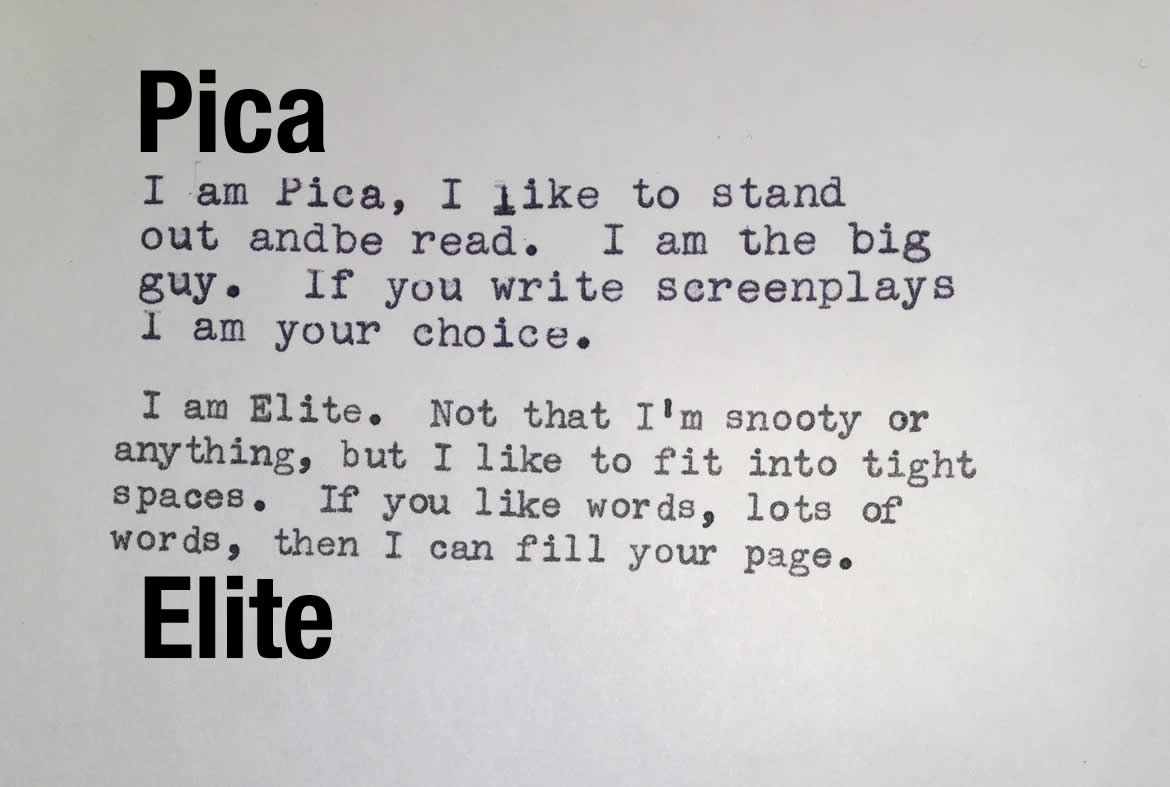
The Dirty Secret of Typewriters
Okay, pilgrim, before you saddle up, there’s something I need to tell you. And perhaps this is a confession. Some might even call it a dirty secret. But I’ll let you decide the label. You could jump in and snag the first decent typewriter. Heck, you might be out for less than a hundred bucks, so why not try out a few? Many of the writers I know who use a typewriter, often have more than one. Myself included! There’s a certain seduction since each one didn’t cost that much. Why not try another? Pretty soon, it’s typewriter of the month club. Resist the urge before it becomes an addiction. I remind myself constantly: I’m a writer, not a typewriter collector! Sure, try a few, if you must, but unload the excess. Let the next worthy hack have some of the action. ‘nuff said. You’ve been warned. Stick to writing.
Four Typewriters
Carriage vs. Basket Shift
One major difference between portable typewriters is how the shifted characters are typed. Each type slug contains both the upper and lowercase character. When you depress shift, you’ll either be raising the carriage or raising the typebar basket. Since the carriage is heavier, it’ll take more effort. And some carriages are heavier than others, or are hinged and levered differently to make them easier to raise.
For those of us reared on computer keyboards, this can be a big deal. On a computer keyboard, shift is the same as all other keys. But when you use a typewriter with a carriage shift, you’ll notice the difference right away. At first it might not be such a big deal, but the more you type, the more you’ll start to feel the weight of the carriage. You’ll be using finger muscles you never thought you had.
Alternatively, a basket shift will be a much lighter experience. While it still takes a bit of extra effort, it’s much less than lifting the carriage. Carriage shifted typewriters were the norm until the mid-1960s. By then, most manufacturers had moved to the easier basket shift. Smith-Corona was one of the early developers of the basket shift, which they called the “Floating Shift.” It’s that light! This feature is one reason why my 1947 Smith-Corona Sterling is still my favorite typewriter. Well, that and the sweeping black curves and glass top keys. Plus, it was the year that the Miles Davis All-Stars debuted at the Savoy! Magic was in the air.
Platens
Another variable to consider is the condition of the platen. This is the big rubber roller that you type on. It’s where the rubber meets the type. A platen should have some give and soften the blow of the type slug. A hard platen will make your typewriter sound loud and may cause your typed characters to penetrate the paper. You can remedy some of this by doubling up on the paper (still recommended!), but the loud smacking will remain. Most machines before the early 1960s that have not had their platens recovered will most likely have hard platens. It’s for this reason that I generally steer first time typewriter users away from these older machines (Pre-1950s). Plus, it’s more likely the old timer will have other mechanical issues. The ravages of the years!
But if the typewriter meets your aesthetics and is in fine condition, you might be able to deal with a hard platen. However, if the typewriter has paper feed problems, the culprit might be the platen along with hardened feed rollers. If the platen is hard, more than likely the feed rollers may be hard as well. The rollers and the platen work together to grip the paper. If they’re hard and slick, you won’t be able to roll paper into the typewriter.
The good news, however, is if you love your typewriter but hate the platen, you can bring it to the repair shop and they’ll send the platen off to be resurfaced or recovered. This is where the old rubber is stripped off and new rubber installed. Expect to spend $200-$300 for this service. You’ll spend more if you need the feed rollers reconditioned as well. If you’re comfortable removing the platen and/or rollers, you can send it off yourself and spend about $100 + shipping. However, platen removal is not for the timid. Smith-Corona portables are the easiest of the bunch. While removing one from an Olympia requires a Master’s degree in mechanical engineering. Here are two that offer platen recovery:
Pica and Elite
In the age before fonts and styles, you basically had two choices of type: Pica or Elite. Pica translates to 10 characters per inch (bigger), while Elite has 12 characters per inch (smaller). Here’s an example of the two:
Pica & Elite
When I first started writing on a typewriter, I liked the larger Pica. It was easier on the eyes. But the more I wrote, I realized with Elite I could cram more words on a page. This made it read more like Times Roman from my laser printer. It had the same flow. With Pica I was turning pages too frequently. And if you also double-space, you’ll get a lot less words on a page. For me, I like getting into the flow of the writing. Flipping pages got me out of the flow. Elite type reduces some of the page flipping.
I’m assuming you’ll have lots of pages to read! You will! My typed pages are all single spaced Elite. It looks dense! Forget editing this page! I don’t even try. I’ll just import into Word for my edits. (Coming Soon! How to Easily Import Typed Pages into Word)
It’ll take some time using a typewriter before you settle on what works for you.
That’s why I recommend not spending a lot of money on your first typewriter. You might get lucky on your first go, but more than likely you’ll want to experiment with a couple different models before finding the one that’s right for you. Once you do, sell your excess and be content, knowing that you’ve done your homework. Having many typewriters laying around is another distraction! What do I write with today? Settle on THE ONE. Make it your temple. Worship the machine. After a day’s work is done, clean the type slugs with a stiff brush and cover her lovingly and with compassion. Namaste.
14. I’m glad to hear there are other typewriter lovers out there. I got my first typewriter for Christmas when I was 14 in the early 80s when I became interested in writing. I gave it up for a while but recently have written my memoir. I’ve rewritten it several times. I have a laptop and printer but I’m retyping it on a Brother GX9500 electronic typewriter I got at a thrift store. The day I got it it stopped typing a couple letters. I was discouraged and advised to go back to using my laptop but I wanted to type on a typewriter so bad. Months later I did some research and figured out how easy it is to replace the daisy wheel. I ordered a new one that types an elegant script. I love it! It runs out of ink a lot but it’s much more fun than using a laptop. It has excellent lift off tape so you can’t see the mistakes. It’s fun to see an instant typed page. I love the tic tic beep. I’m doing the work myself not some computer. I don’t even know how to back up a document and have had to find help. Typing on a typewriter is like playing a musical instrument. Everything is so digital and instant these days. Right now I’m drumming my fingers waiting for my next ink cartridge order. Wish it were the 70s so I could just pick some up in the stationery aisle at the local Pay n Save. My Brother works great but it’s just plain light gray. I just picked up a white and blue electric Corona Smith Coronamatic because I fell in love with it’s good looks. However, it has some carriage problems. It stops in the middle of a line and types over letters. I have to give the carriage a little nudge. Other than that it needs a new ribbon. I know there are laptops but they’re all alike. Just flat and square. Typewriters are beautiful and unique. The older ones are two toned and have chrome like classic cars. Wish it were the old days so I could go to the local typewriter repair shop or shop for one in a store. My coworkers and even my sister tell me the same thing. Why do I want to use a typewriter when it’s 2022? They just don’t get it. I took typing classes in high-school and college. I never thought I’d miss it so much. I talk to 20 somethings who can’t see the point of using one when it’s easier to use a laptop because that’s all they know. People think using a typewriter is pointless so I’m happy to hear there are other typewriter lovers out there. Record players are making a comeback why not Typewriters!